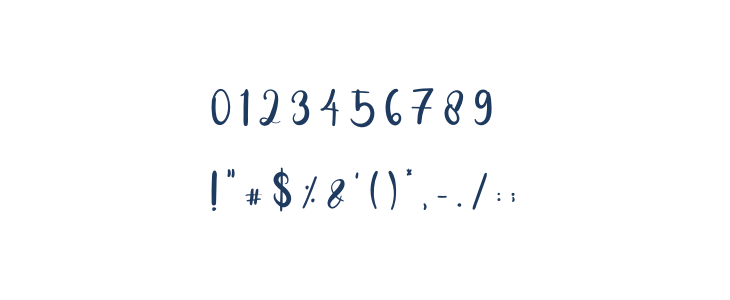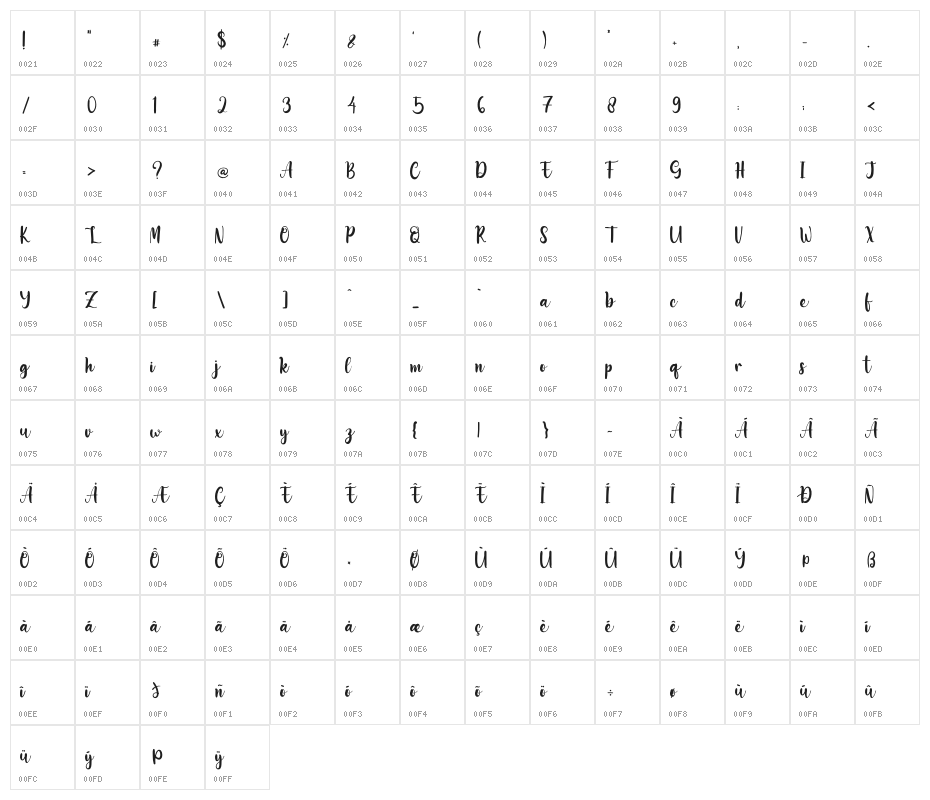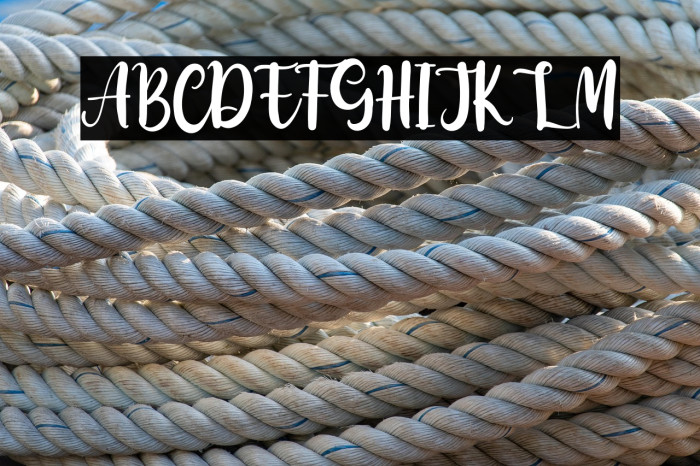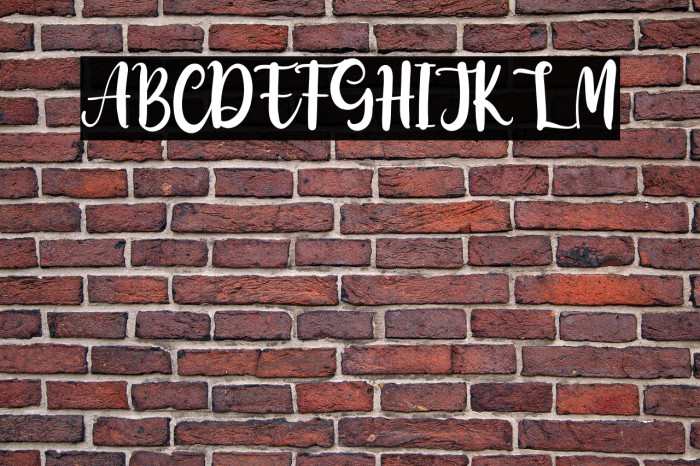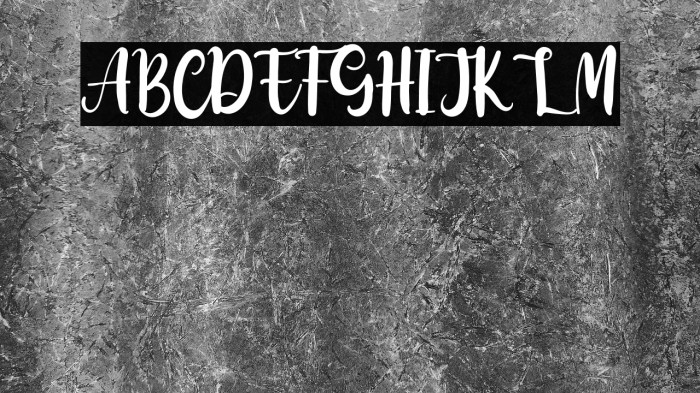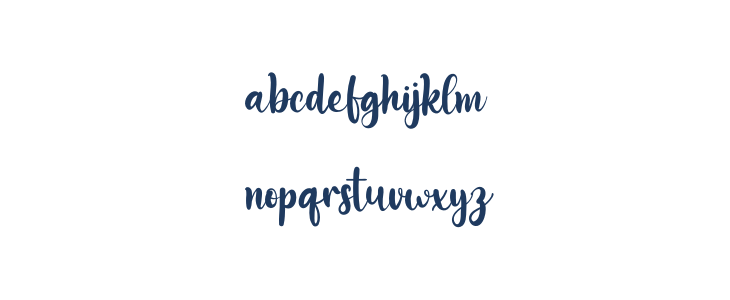
Shaffari Font
Shaffari Description
This font features a playful and artistic script style with a handwritten appearance. The uppercase letters are bold and expressive, with a slight slant that adds a dynamic flow. The lowercase characters maintain a consistent style, with smooth curves and a casual elegance. Numbers are clear and legible, matching the overall aesthetic. Special characters are creatively designed, fitting seamlessly with the rest of the font. The strokes vary in thickness, providing a medium contrast that enhances readability while maintaining a stylish look.